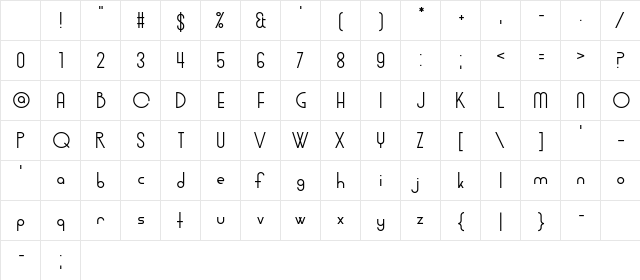
Complete Midnight Champion Regular glyph index. Displaying only characters natively supported by Midnight Champion Regular font.
Midnight Champion is a composed and adaptable typeface that performs quietly and consistently across a wide range of design contexts.